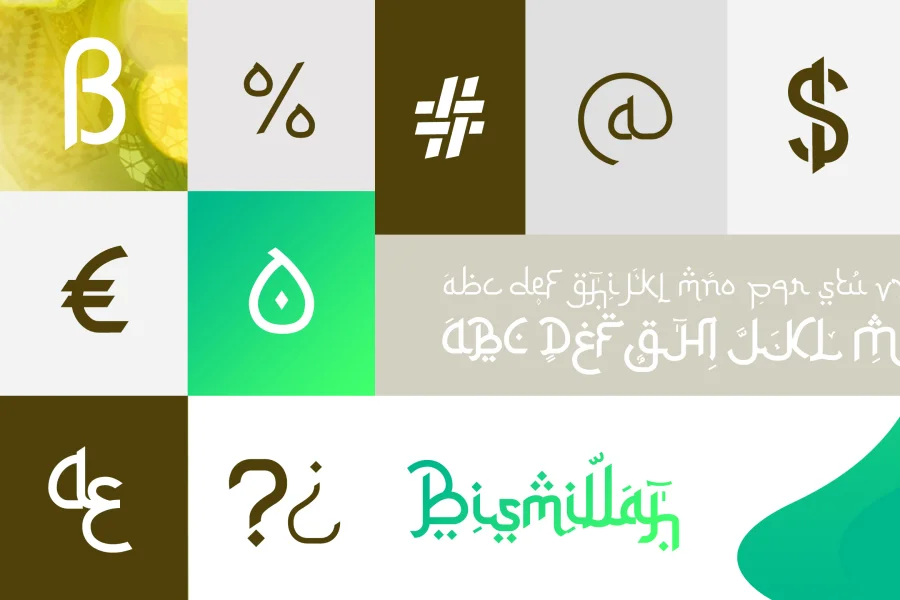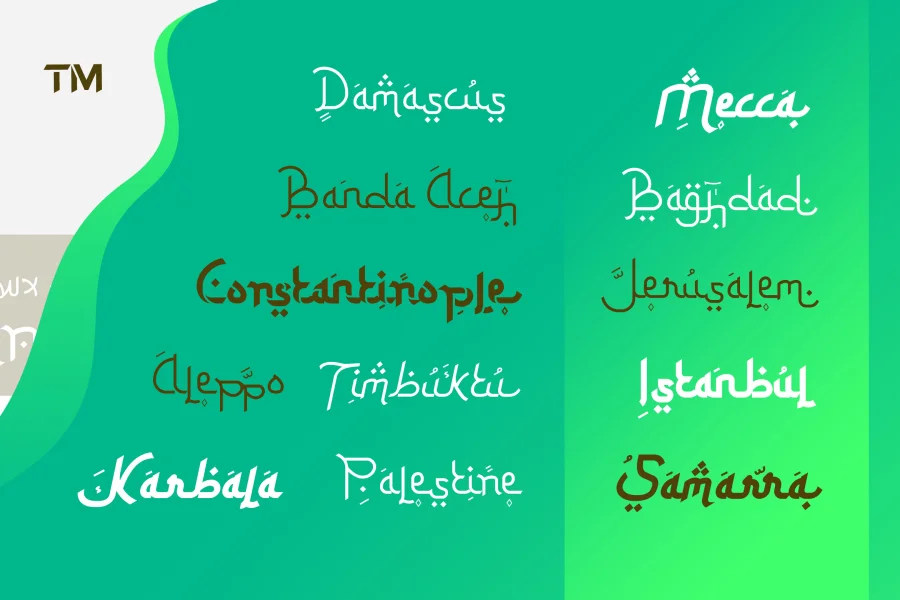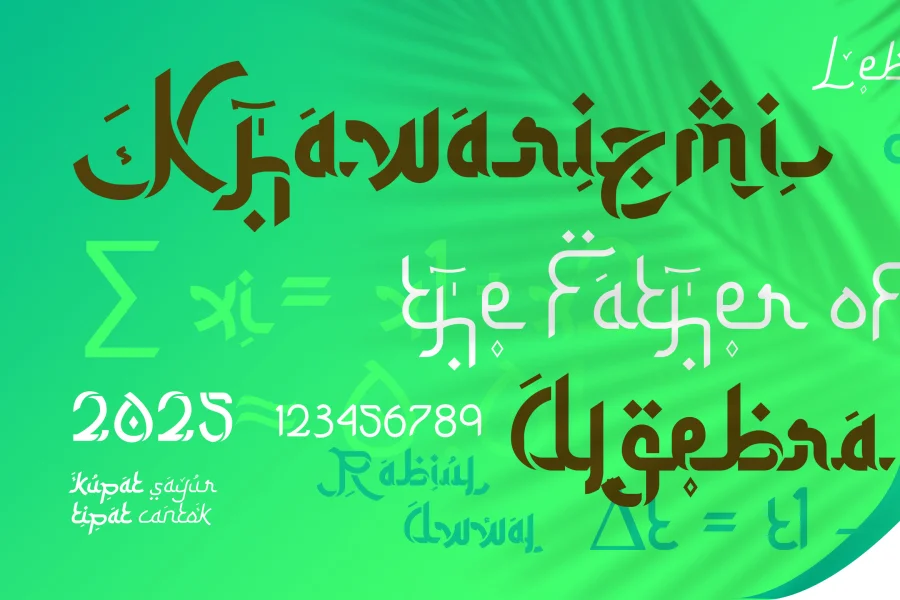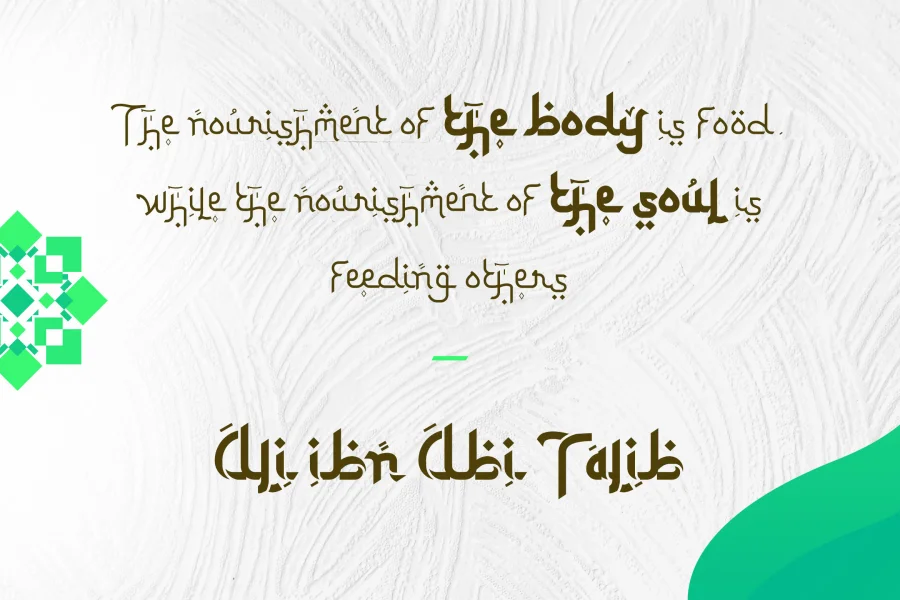
Ketupat font is a simple Arabic fauxlang typeface. Its design—inspired by Arabic typefaces and makes it suitable for almost anything you can think of. Especially for packaging design. You can use it in a variety of uses from printing, web and mobile.